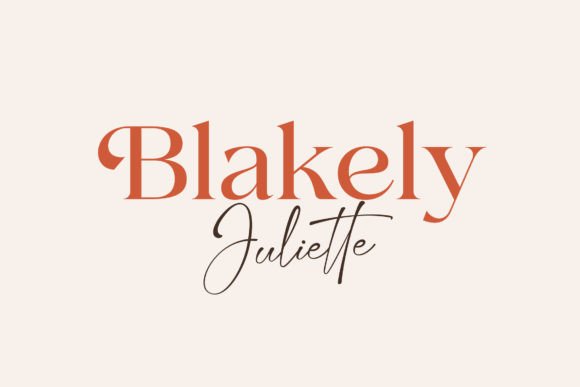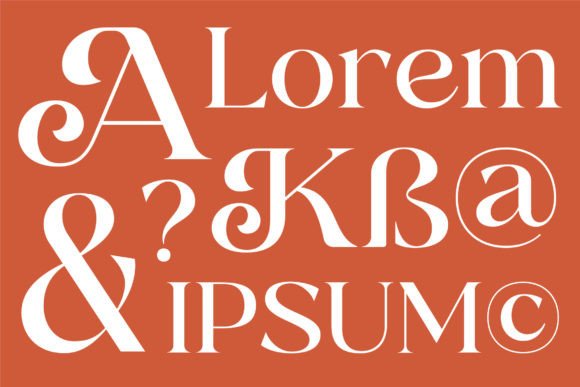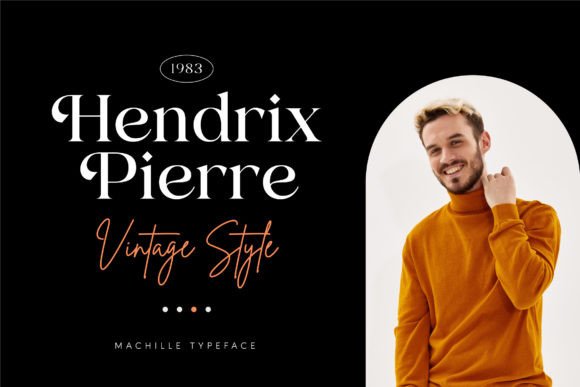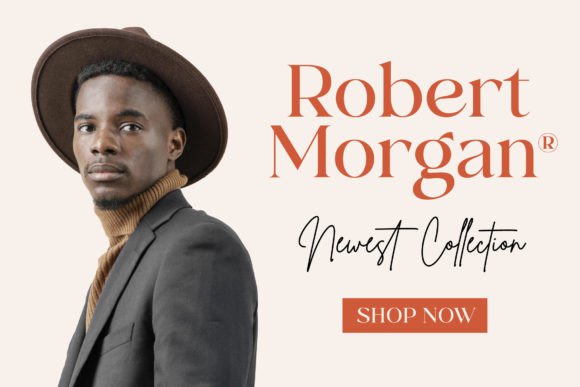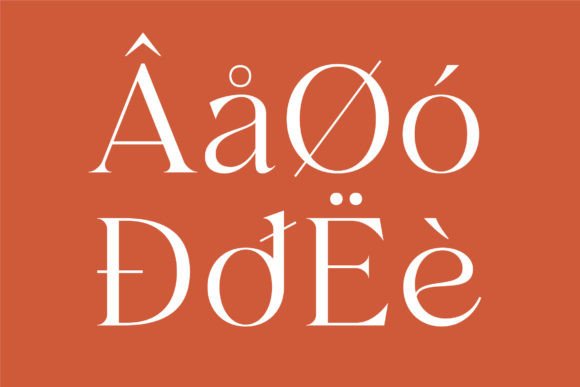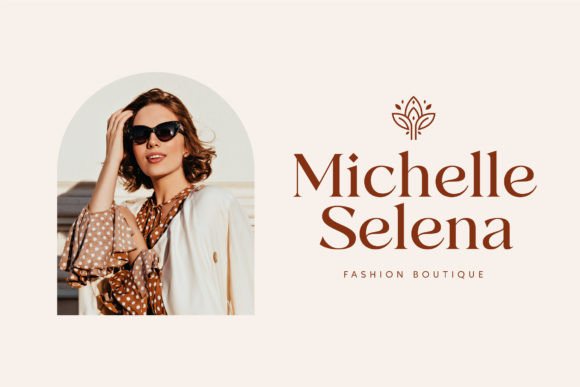
Introduction to Machille Font
As a designer, there’s nothing quite like the thrill of stumbling upon the perfect font to elevate your creative project. It’s the moment when everything falls into place, and your design begins to take shape. For those working in the fashion industry, or anyone seeking to add a touch of sophistication to their work, this moment is especially sweet. Enter the Machille Font, a display font that exudes elegance and uniqueness, making it the perfect design resource for a wide range of applications.
Whether you’re crafting a high-end fashion label or designing a wedding invitation, the Machille Font is sure to impress. Its versatility and high quality make it an invaluable asset for designers, allowing them to bring their creative vision to life with ease. And the best part? This stunning font is available for free download, giving designers the flexibility to experiment and push the boundaries of their creativity.
Key Features of Machille Font
- High-quality design for creative projects: Machille Font is a perfect choice for designers who want to add a unique touch to their work.
- Resolution-independent: Machille Font is designed to look great at any resolution, making it ideal for use in various design contexts.
- Perfect for digital and print projects: Machille Font is suitable for use in a variety of creative projects, including digital art, print materials, and more.
Honest Review: Machille Font
I recently stumbled upon the Machille Font, and I must say it’s a great addition to any designer’s toolkit. This font is perfect for creative projects that require a unique touch.
- ✨ High quality design: The Machille Font boasts a clean and modern design that is sure to elevate any project.
- ✨ Versatile: The font is available in multiple weights, making it easy to use for a variety of design projects.
- ⚠️ Not suitable for small text: Due to its bold design, the Machille Font may not be the best choice for small text or intricate designs.
Overall, I’m impressed with the Machille Font. It’s a high-quality design resource that can add a unique touch to any creative project. Just be sure to review the usage rights before incorporating it into your design.
Machille Font
Machille Font is commonly used in creative projects, such as logo design, branding, and typography. It is also used in design resources, such as templates and graphics. You can use Machille Font in a variety of design applications, including Canva, Adobe Photoshop/Illustrator, and PowerPoint/Word.